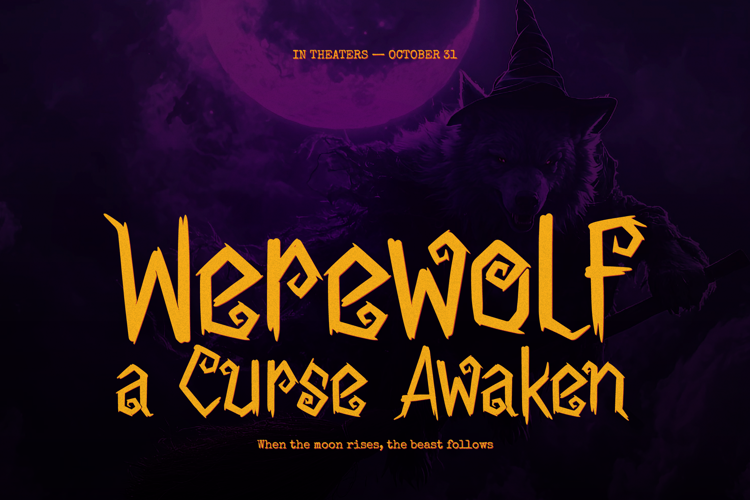
Rune Witch Font
Rune Witch | Fantasy Hand Drawn product packaging, mugs, quotes, posters, shopping bags, t-shirts, book covers, name card, invitation cards, greeting cards, label, photography, watermark, special events, and all your other lovely projects that need a Hand Drawn taste.